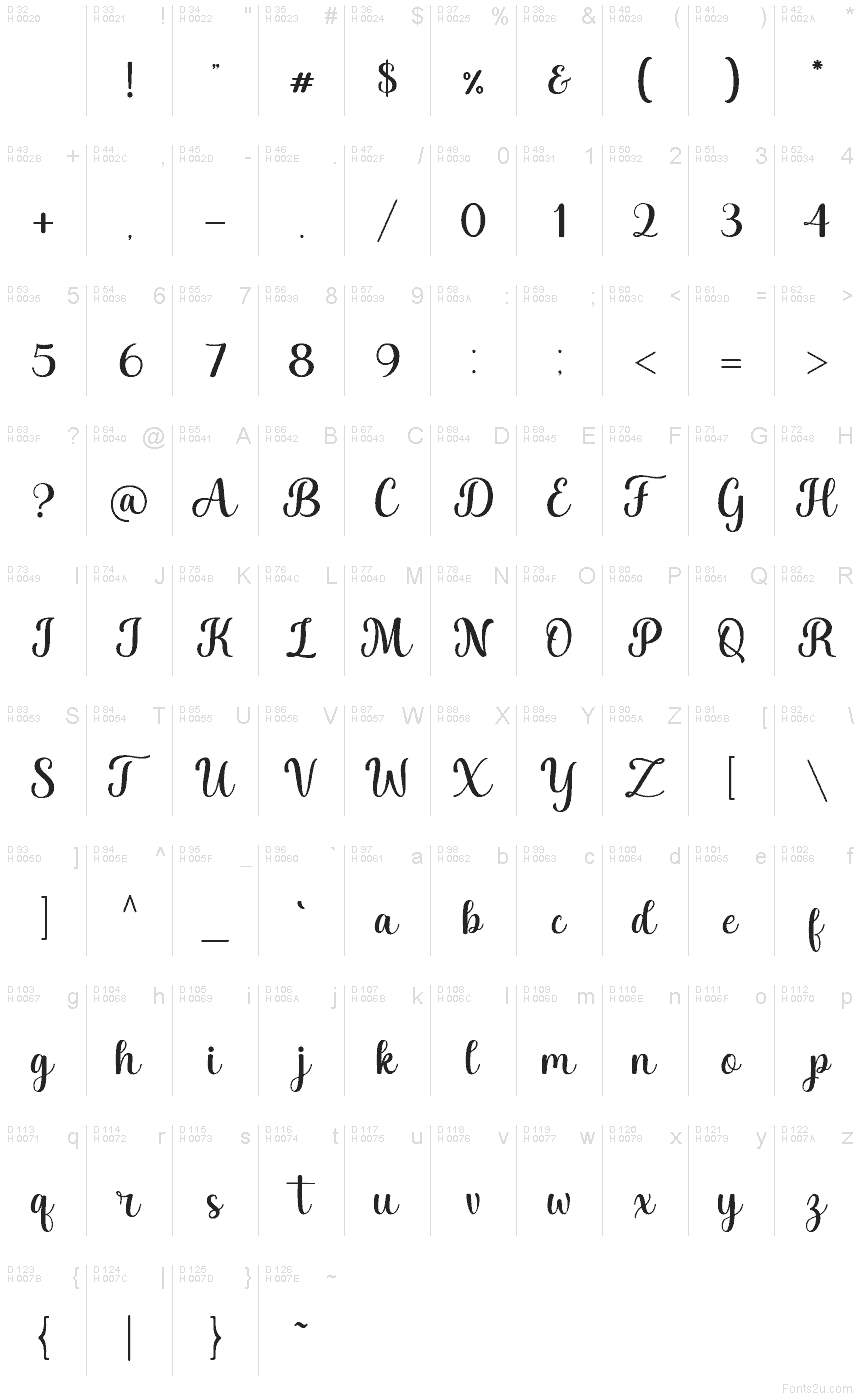
Anttoni Script
Anttoni Script font by MJType is a free calligraphy typeface that brings a breezy, handwritten charm to your layouts. Its looping strokes and gentle bounce feel like ink flowing from a favorite brush pen—elegant, but not stuffy. The rounded curves and generous spacing keep it readable at medium sizes, so you get romance and warmth without sacrificing clarity.
Using Anttoni Script, you can give wedding invitations, save-the-dates, greeting cards, logos, product packaging, social media graphics, and quote posters a soft, personal voice. This free font shines when used as a bold headline or name, paired with a clean sans serif for body copy to keep everything grounded. Keep it slightly larger than your supporting text to let those playful curves breathe and make the script feel effortlessly special.